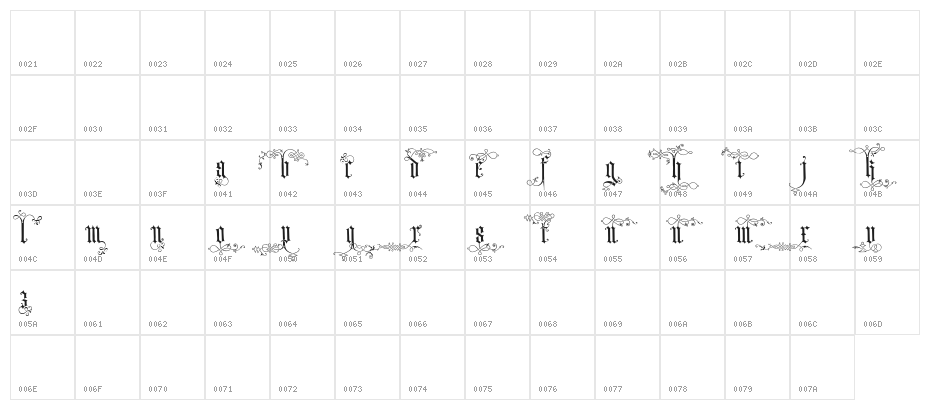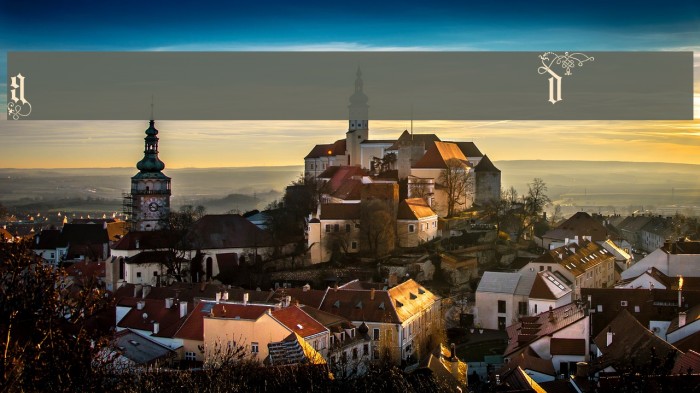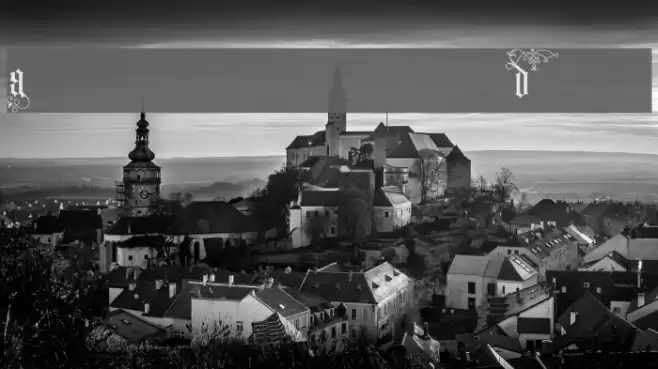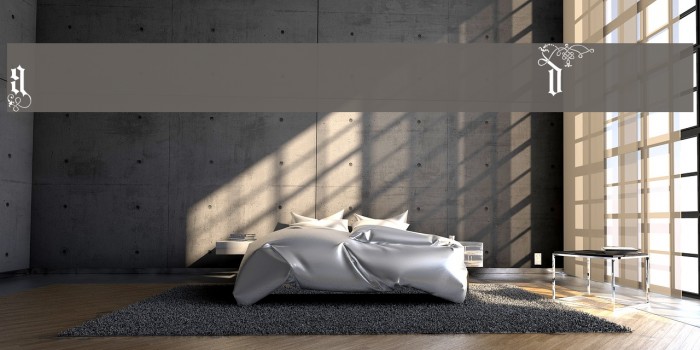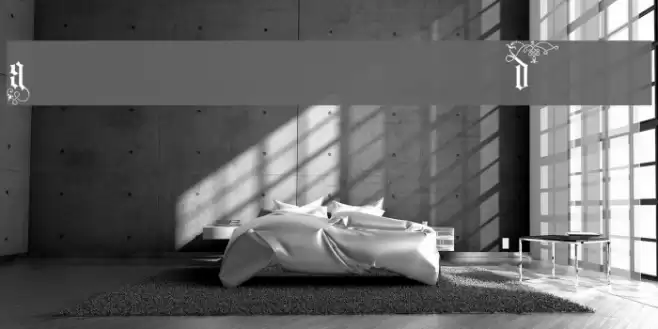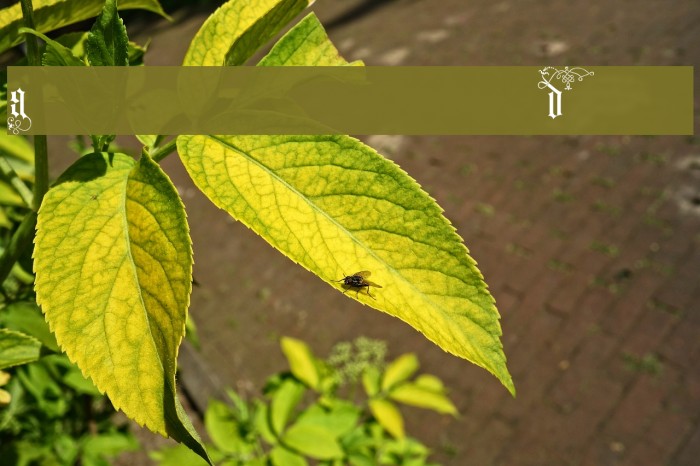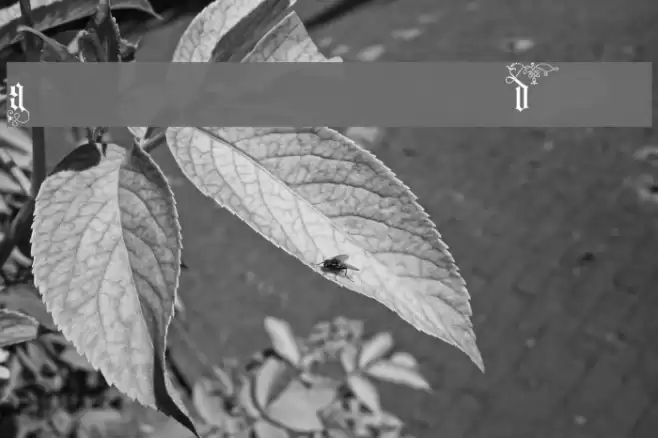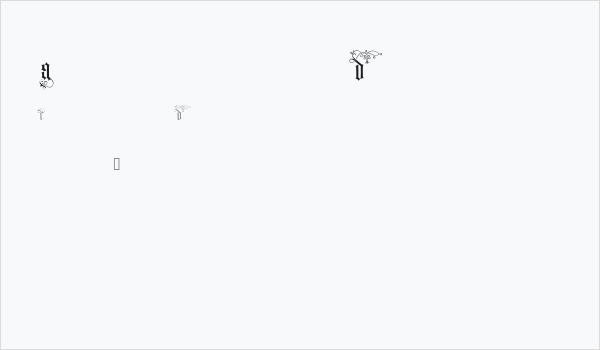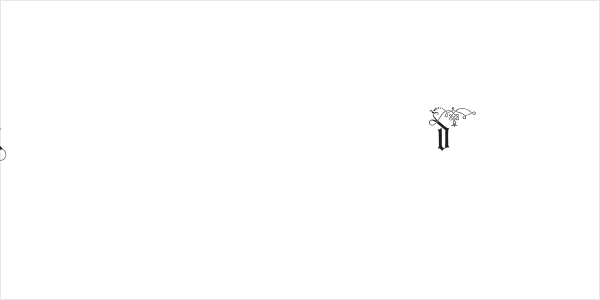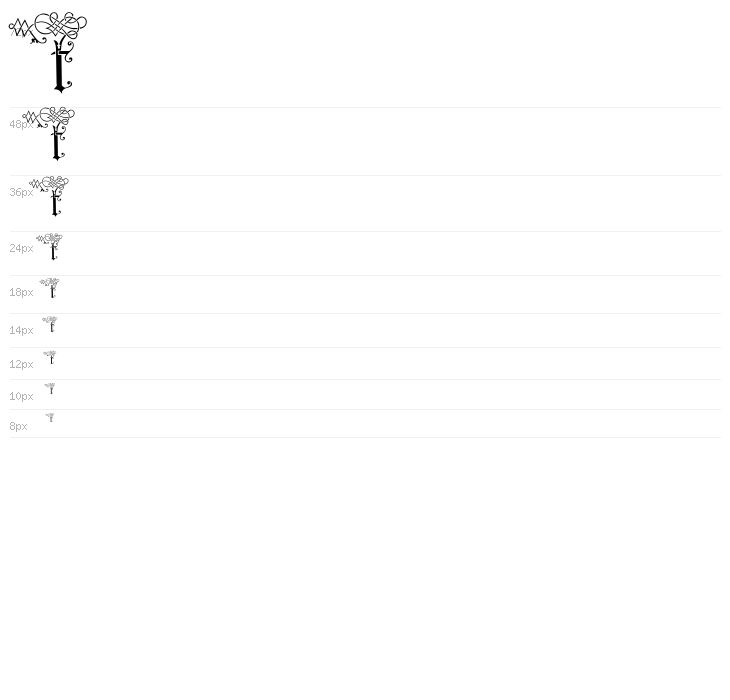
Ardenwood Demo Font
Fonts by The Scriptorium - Dave Nalle
| Anwendungsfall | Logos, Headlines, Decorative text |
| Vorgeschlagene Projekte | Ideal for use in vintage-themed designs, historical documents, wedding invitations, or any project requiring a medieval or gothic aesthetic. |